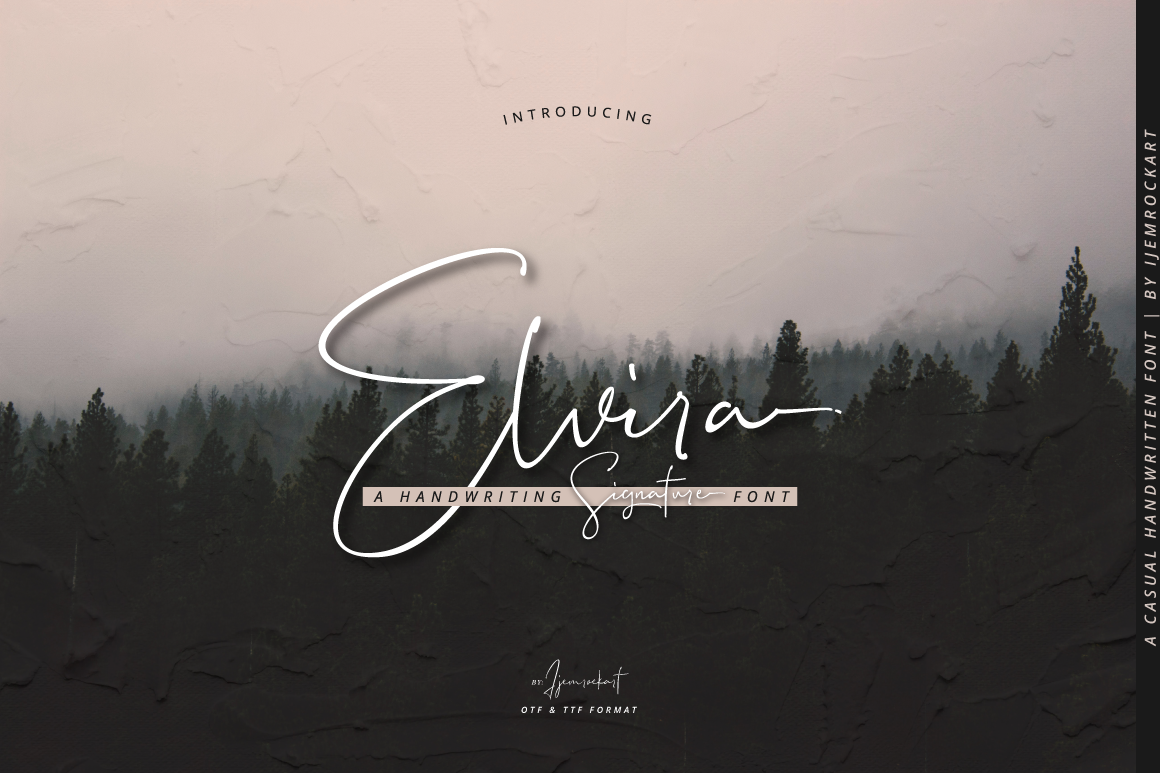
Elvira Signature
Elvira Signature is a handwritten signature typeface coming with more than 82 stylistic ligatures. Its classy energetic look makes it the perfect fit for feminine logos, printed quotes, invitation cards, social media headers, product packaging and a lot more!Files Include :